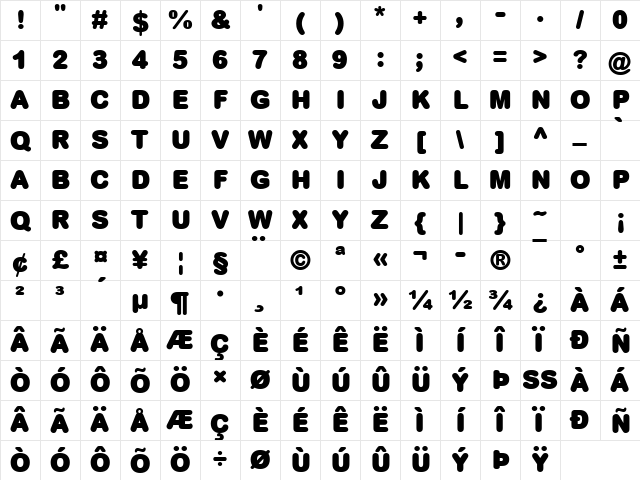
Complete Plump MT Regular glyph index. Displaying only characters natively supported by Plump MT Regular font.
Plump MT is a composed and adaptable typeface that performs quietly and consistently across a wide range of design contexts.
Pro Tip: Use Plump MT in both headline and body roles to test its range before committing to a single application.